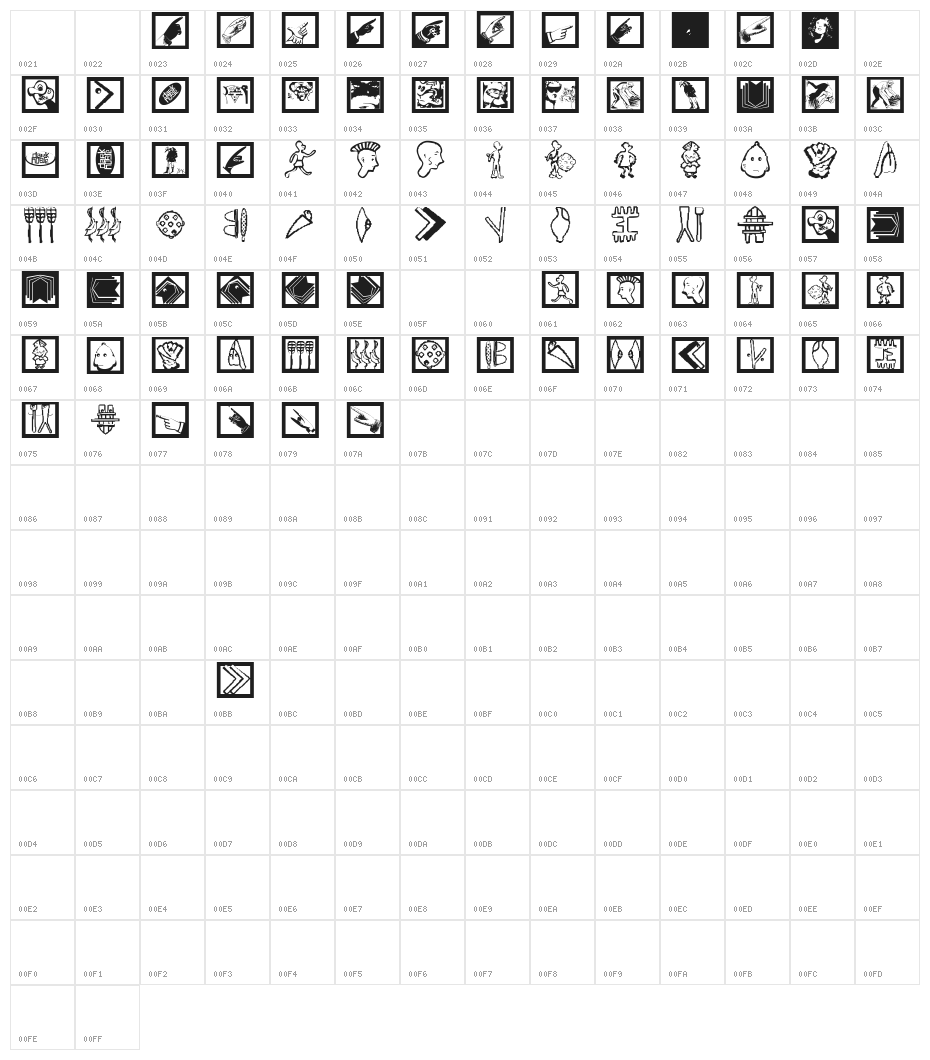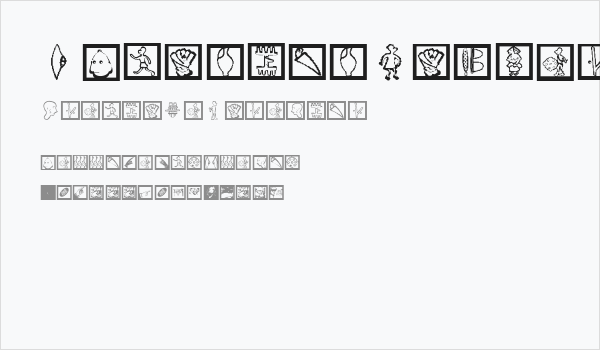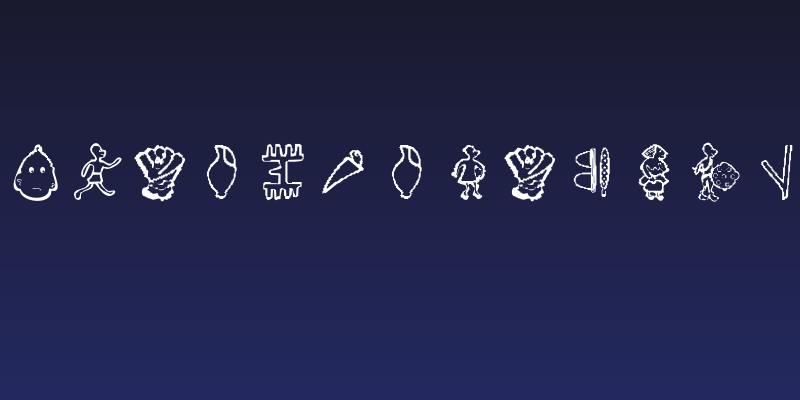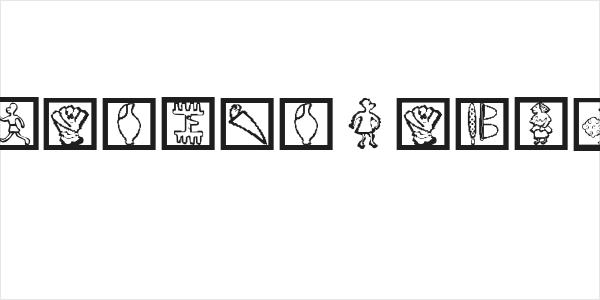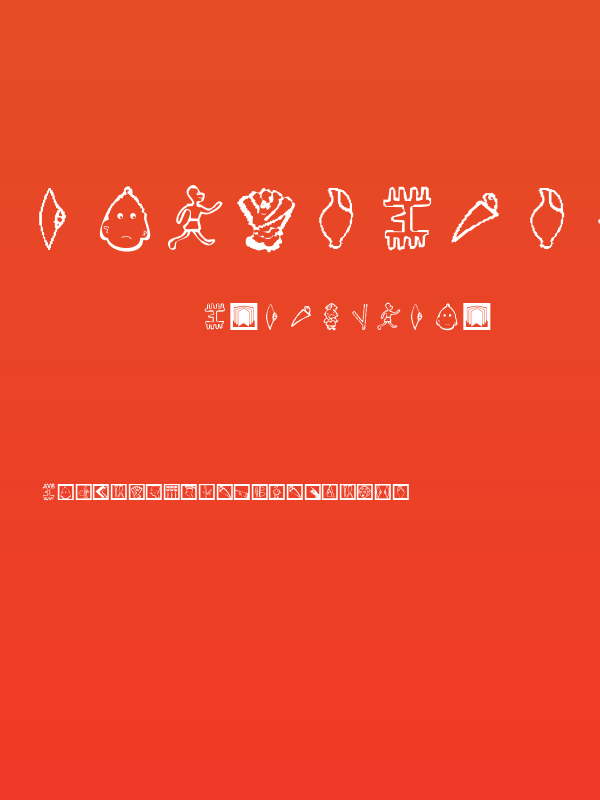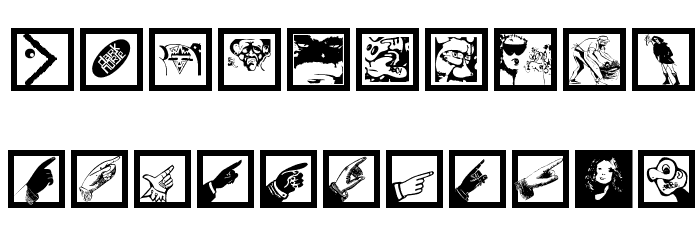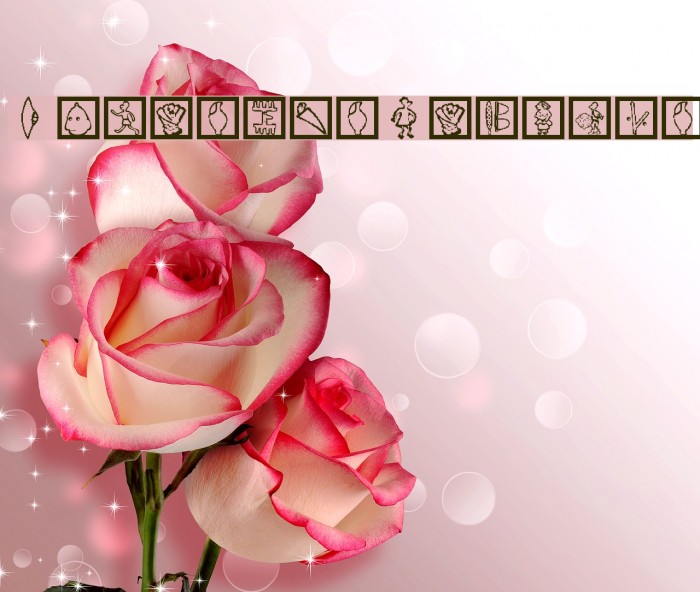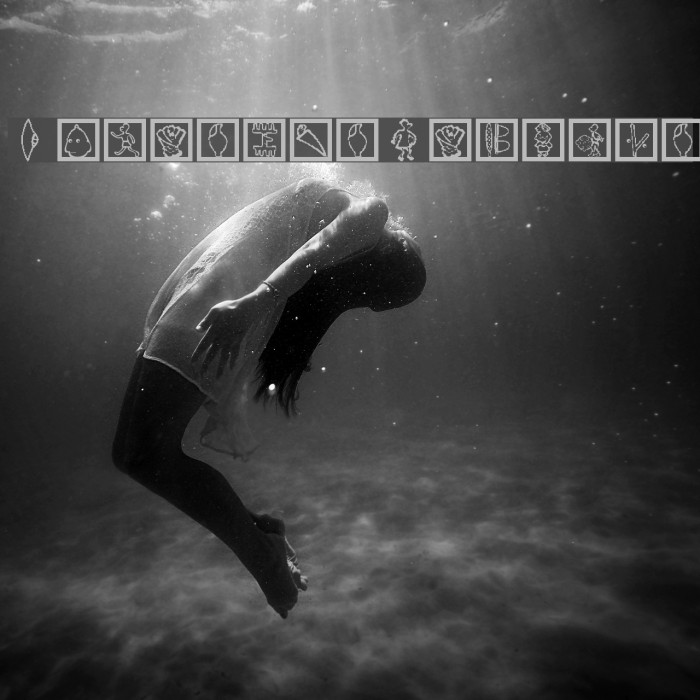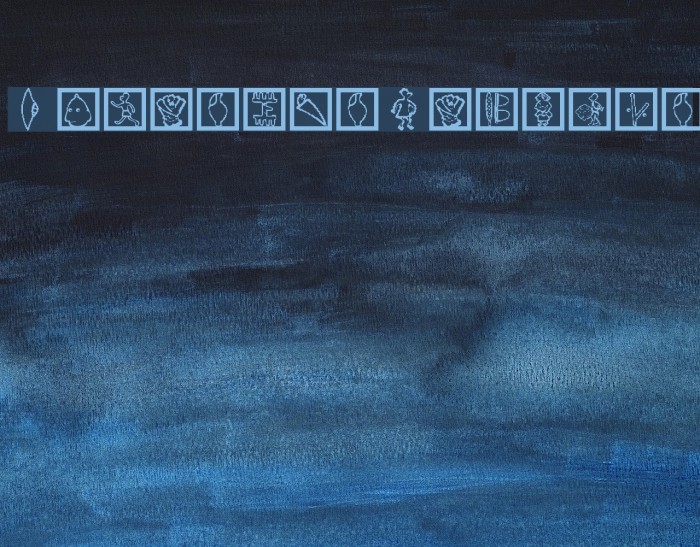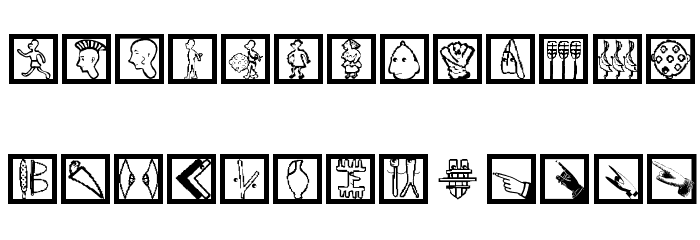
PhaistosFingers Font
This collection features a series of pictographic symbols reminiscent of ancient scripts, each character resembling a unique icon or illustration. The symbols include depictions of human figures, abstract shapes, and various objects, each enclosed in a square frame. The style is highly decorative and illustrative, with a hand-drawn quality that suggests a historical or archaeological theme. The characters are bold and distinct, making them suitable for artistic or thematic projects that require a touch of antiquity or mystery. The overall design is intricate, with each symbol offering a story or concept, making it ideal for creative and interpretive uses.
| Use Case | Logos, Artistic projects, Educational materials |
| Proposed Projects | Ideal for historical-themed designs, educational materials about ancient cultures, or artistic projects that require unique symbolic representations. |